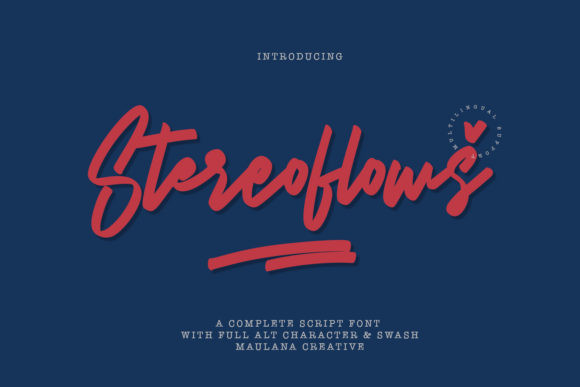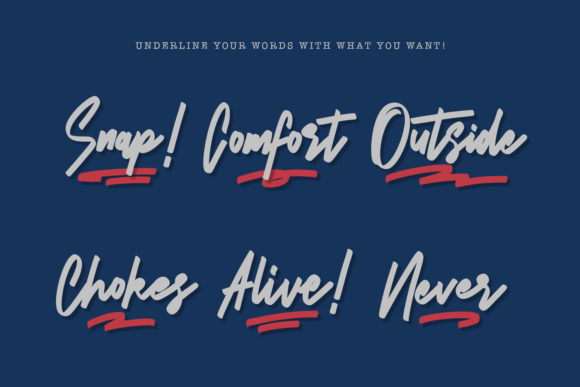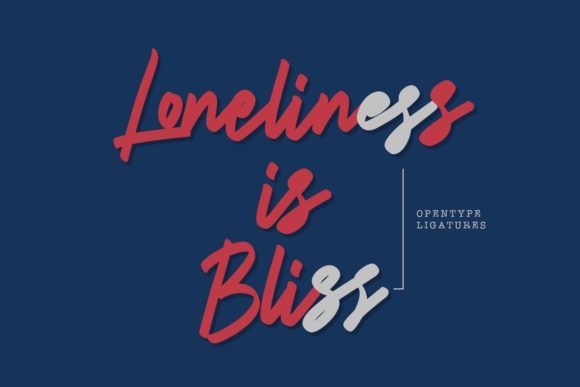
Stereoflows Font
Stereoflows is a lovely and casual handwritten font. It is the best choice for creating eye catching logos, branding and quotes. Every letter has a unique and beautiful touch, which will make your design come alive!